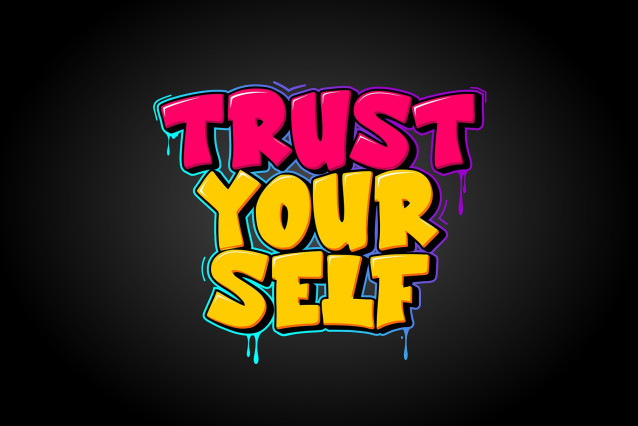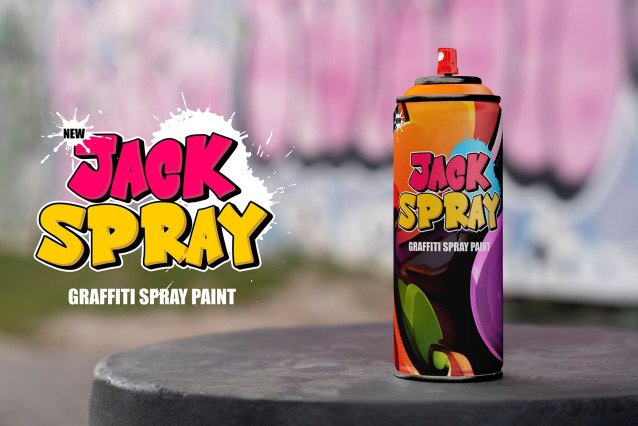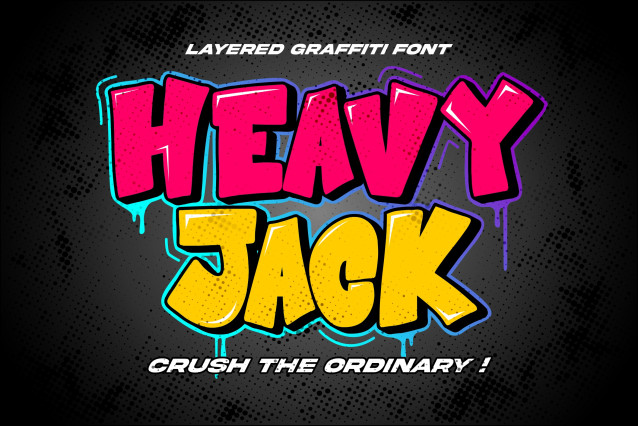
Heavy Jack Font
Heavy Jack Font – Layered Graffiti Font is designed for creatives who want to capture the fearless, urban spirit of graffiti in their work. With its layered graffiti font style and powerful allcaps letters, Heavy Jack is perfect for street art-inspired branding, bold posters, merchandise, and music covers.
This layered graffiti font doesn’t just look strong—it adds depth and texture through its layered design, giving your words a three-dimensional edge that commands attention.
Layered Graffiti Font with Street Energy
Heavy Jack was created to embody the raw energy of graffiti walls and urban culture. Its layered construction—featuring a strong main font and a complementary shadow style—lets you create designs that feel bold, gritty, and full of personality.
As an allcaps layered graffiti font, it’s ideal for headlines, logos, and projects where you need maximum impact. Whether you’re designing hip-hop posters, skateboarding apparel branding, or underground event flyers, Heavy Jack delivers the fearless vibe of the streets.